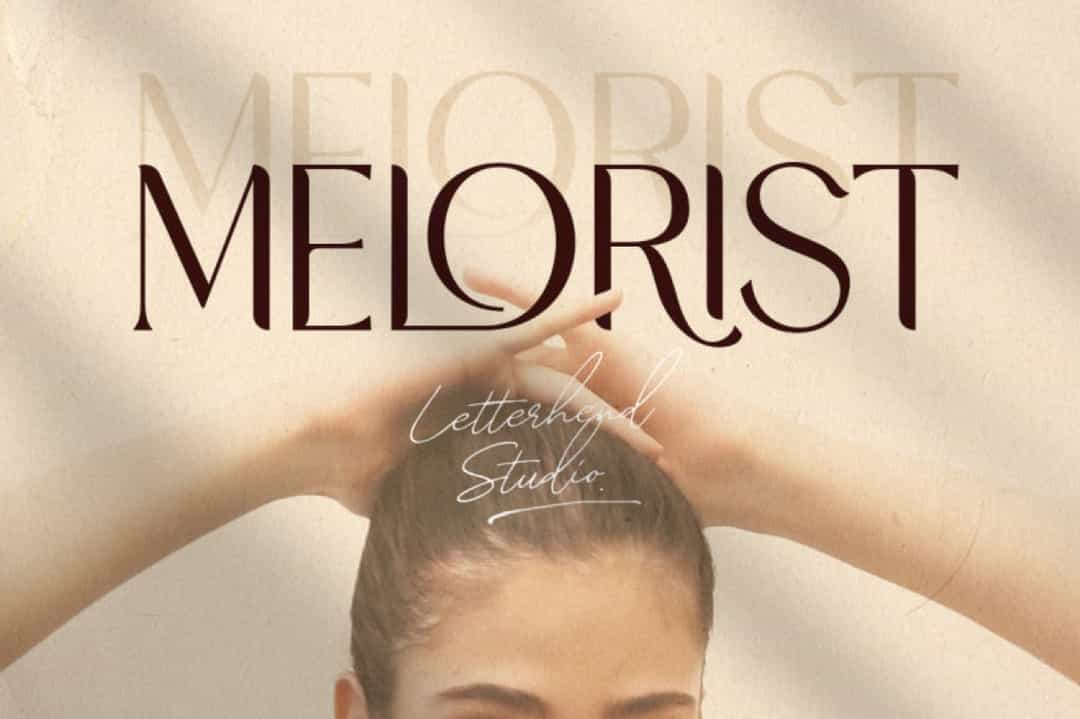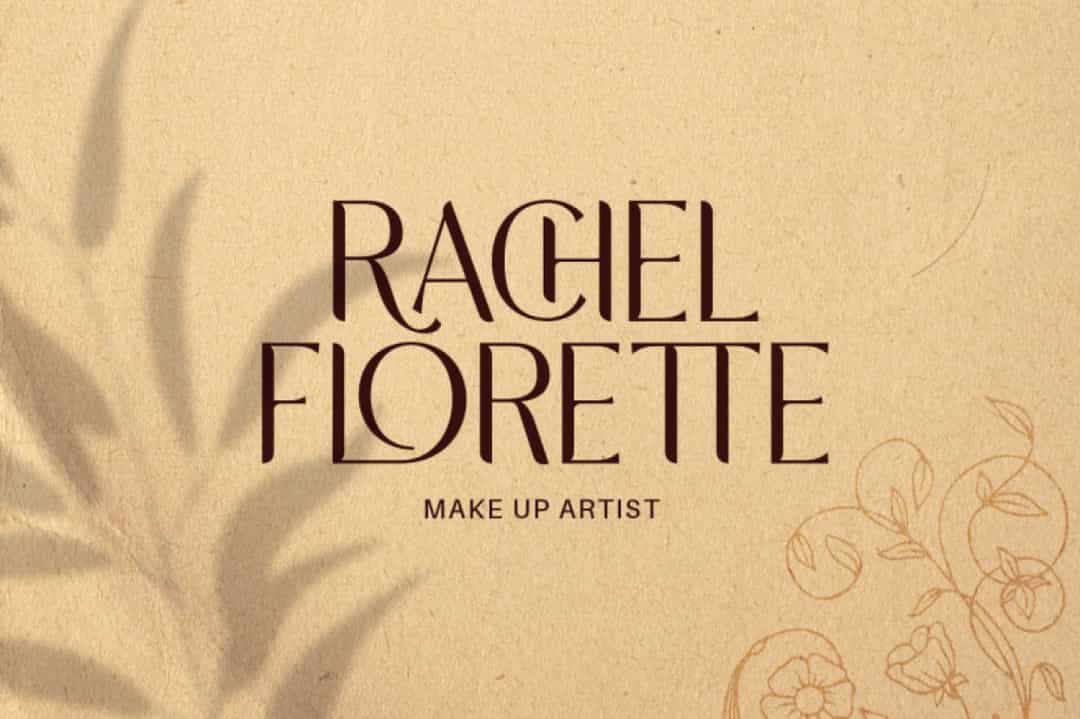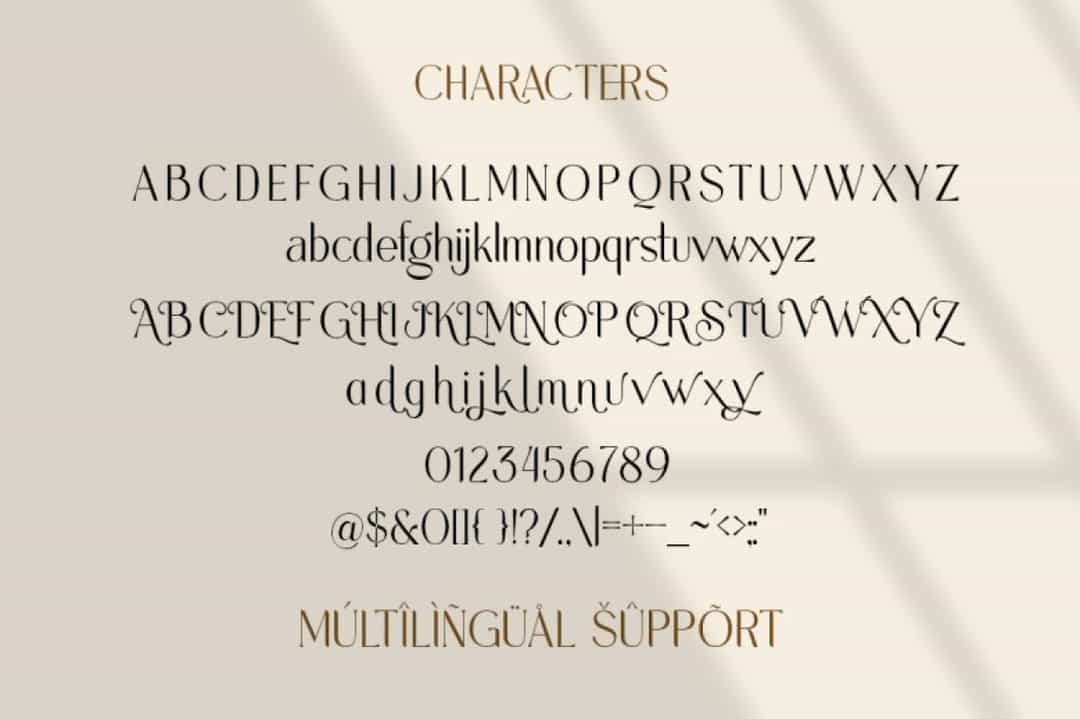
Discover Melorist Font, part of the Serif Display collection—a versatile and unique font perfect for adding a personal touch to your projects. Download it for free and enjoy crafting designs with style, from invitations to social media posts. This font is available exclusively for personal use, giving you the freedom to create without limits. Unlock your creativity with Melorist Font today!
Melorist is an elegant Display Ligature font. This font boasts tidy yet elegant letterforms, making it suitable for modern minimalist design themes. Additionally, it’s stylistic ligatures and variations create an exceptional font with which it stands out among its counterparts.